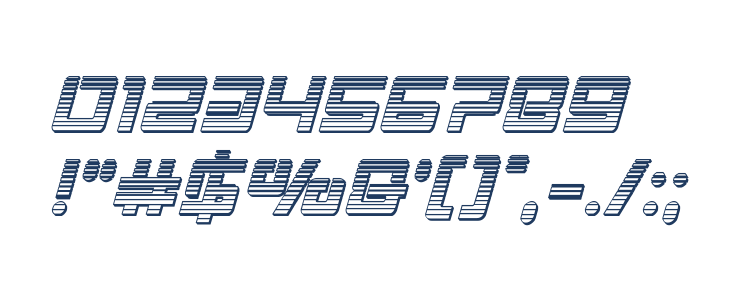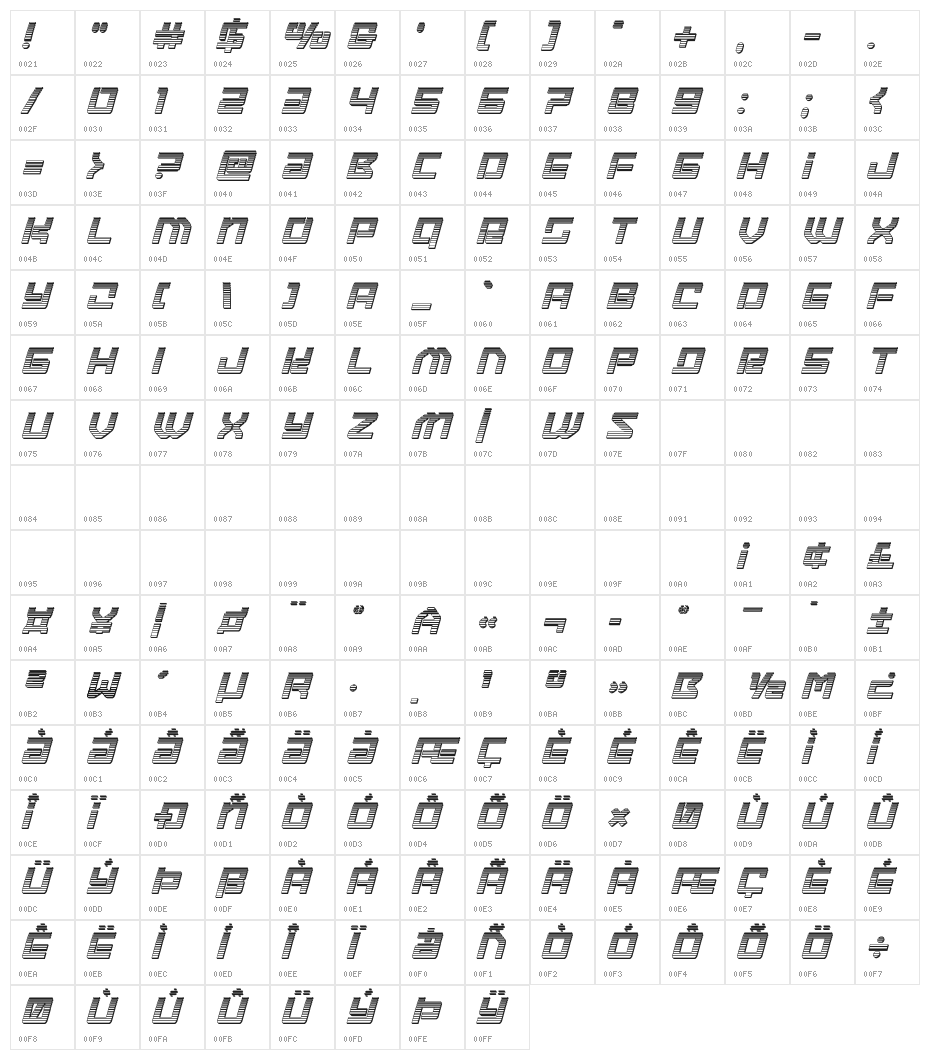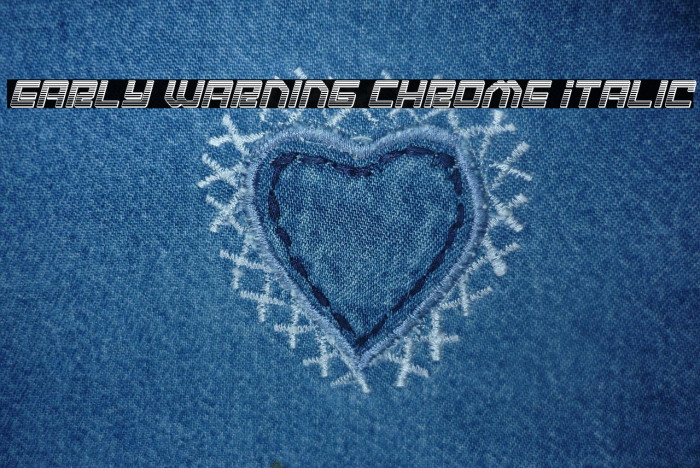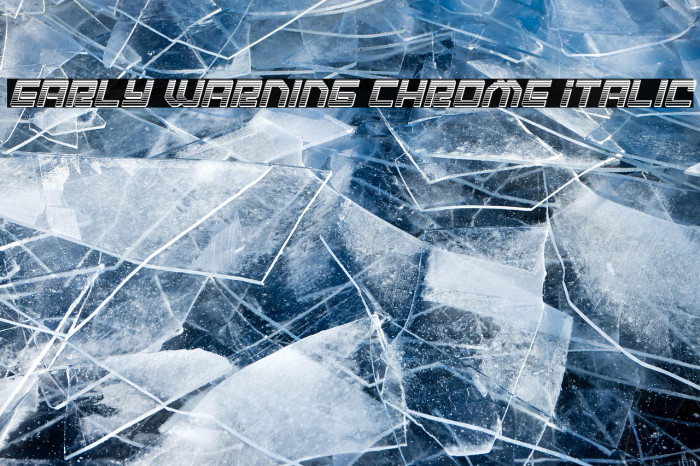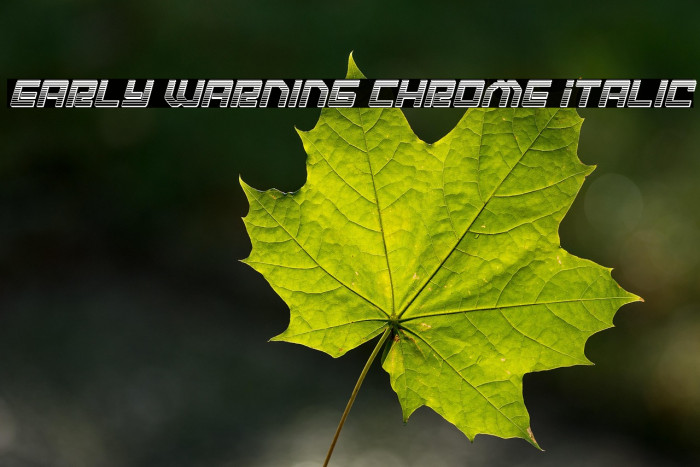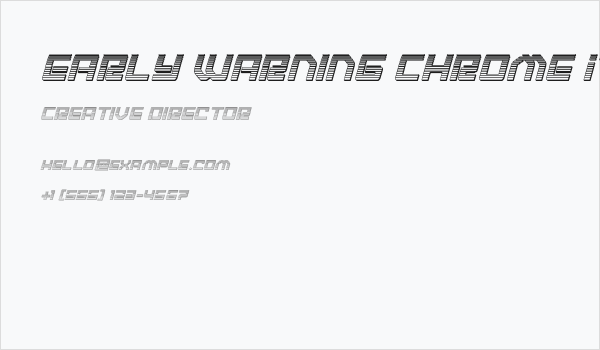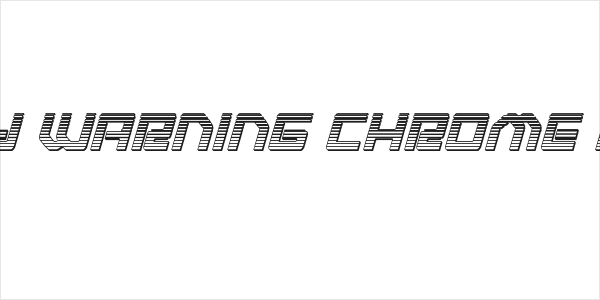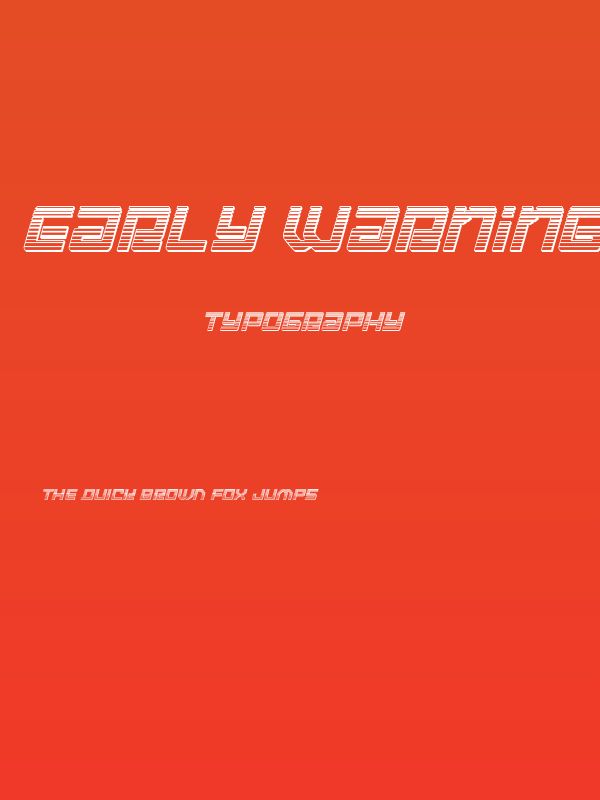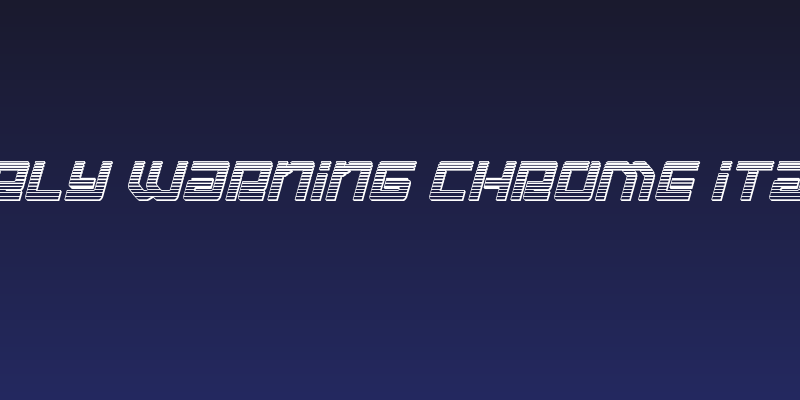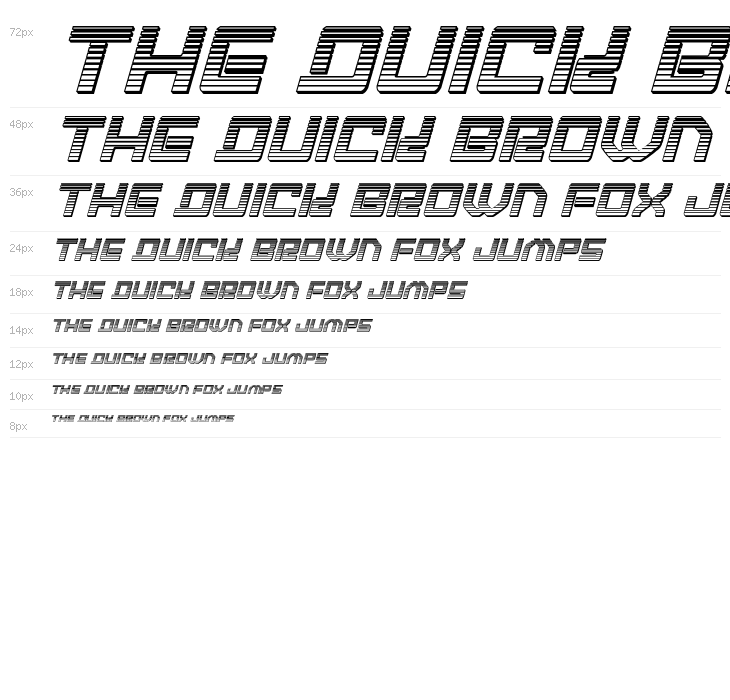
Early Warning Chrome Italic Font
Early Warning Chrome Italic Description
This font features a futuristic and dynamic design with a distinct chrome-like appearance. The characters are constructed with multiple horizontal lines that create a sense of movement and depth. The italic style adds a forward-leaning slant, enhancing the impression of speed and modernity. Each letter is bold and impactful, making it suitable for attention-grabbing headlines. The spacing between characters is tight, contributing to a cohesive and compact look. The numbers and special characters maintain the same stylistic elements, ensuring consistency across all glyphs.
| Proposed Projects | Ideal for sci-fi themed posters, video game titles, technology branding, and futuristic event flyers. |